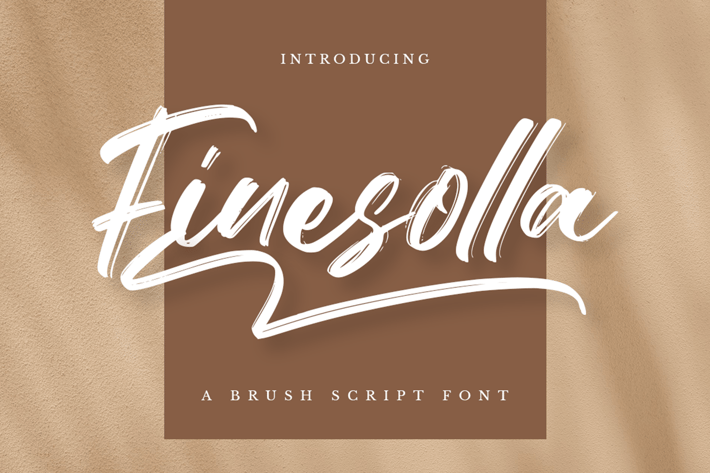
Finesolla - Brush Font
Finesolla is a cool brush script font. Itβs perfect for creating logos, product branding, posters, social media posts and much more! Ignite your creativity with this fun font.